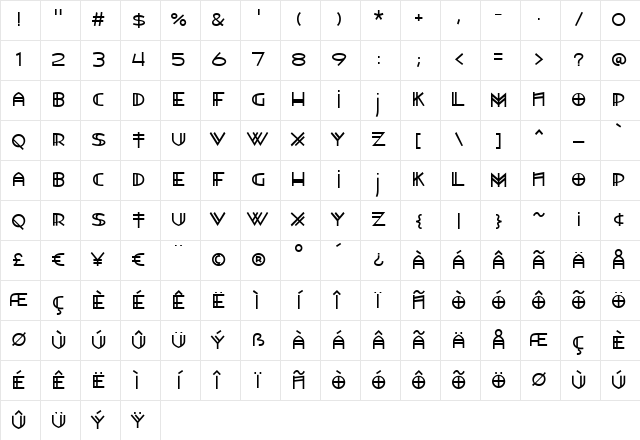
Watertown Alternate Regular
Foundry: Fonthead Design Inc.
Designer: Ethan Dunham
Design Context for Watertown Alternate
Watertown Alternate is a composed and adaptable typeface that performs quietly and consistently across a wide range of design contexts.
Who designed the Watertown Alternate Regular font?